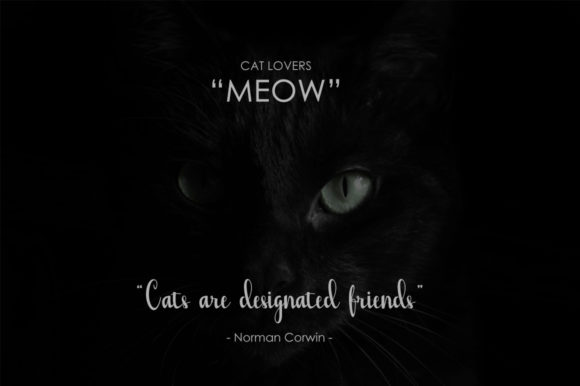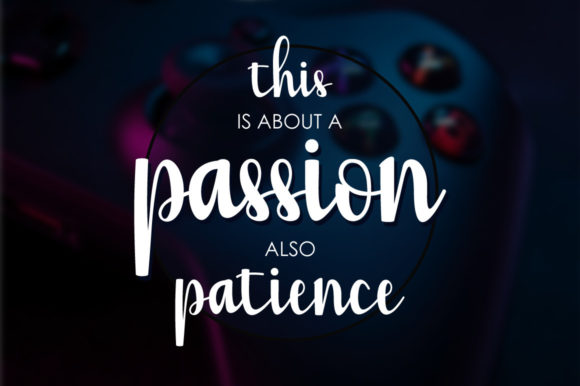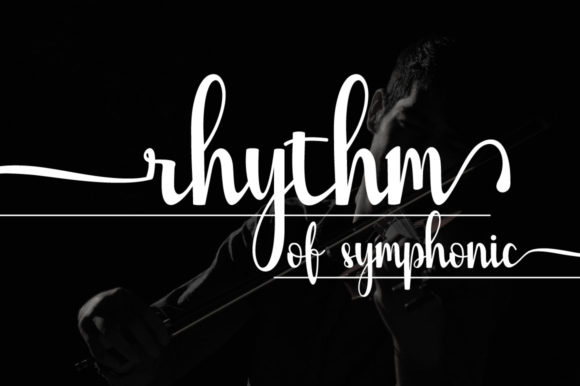
Introduction to Etweego Font
Do you remember that moment when you’re working on a creative project and you’re searching for the perfect font to give it that extra oomph? For many designers, this is a daily struggle, but what if you stumbled upon a font that would make all your design dreams come true? Enter the Etweego Font, a delicate and elegant handwritten font that will take your creative project to the next level.
With its distinct and well-balanced letters, the Etweego Font is a true masterpiece that will elevate any design. As a valuable design resource, this font is perfect for designers who are looking for a high-quality font that will give their work a personal touch. And the best part? The Etweego Font is PUA encoded, making it easy to access all the glyphs and swashes you need to create something truly special.
Whether you’re working on a branding project or creating a beautiful invitation, the Etweego Font is sure to impress. And the best part? It’s available for free download, making it a must-have for any designer’s toolkit. With its transparent background and elegant design, this font is a game-changer for any creative project.
Key Features of Etweego Font
- The Etweego Font is a high-quality design resource, perfect for creative projects requiring unique typography.
- It includes a range of characters, including uppercase and lowercase letters, numbers, and punctuation marks, making it suitable for various creative projects.
Honest Review: Etweego Font
I recently stumbled upon the Etweego Font, and I must say it’s a great addition to any design resource. As a designer, I’m always on the lookout for high-quality fonts that can elevate my creative projects. The Etweego Font delivers in this regard.
- ✨ High-quality design: The Etweego Font is meticulously crafted, with a focus on detail and elegance.
- ⚠️ Limited font styles: The Etweego Font only comes in a few font styles, which may limit its versatility in certain design projects.
- ⚠️ Not suitable for large text: The font is best used for smaller text sizes, as it may become difficult to read at larger sizes.
Overall, I’m impressed with the Etweego Font’s design and functionality. While it may have some limitations, it’s a great resource for designers working on creative projects. I’d definitely recommend it to anyone looking for a high-quality font to add to their design arsenal.
Tips for Getting the Most Out of Etweego Font
To get the most out of Etweego Font, experiment with different font sizes, colors, and styles. This font is highly versatile and can be used in a variety of creative projects. Don’t be afraid to try new things and see how the font can enhance your design.
Etwego Font is commonly used in graphic design, branding, and digital marketing projects. Its high-quality design and transparent background make it perfect for creating eye-catching graphics and logos. Whether you’re working on a personal or professional project, Etweego Font is an excellent choice.